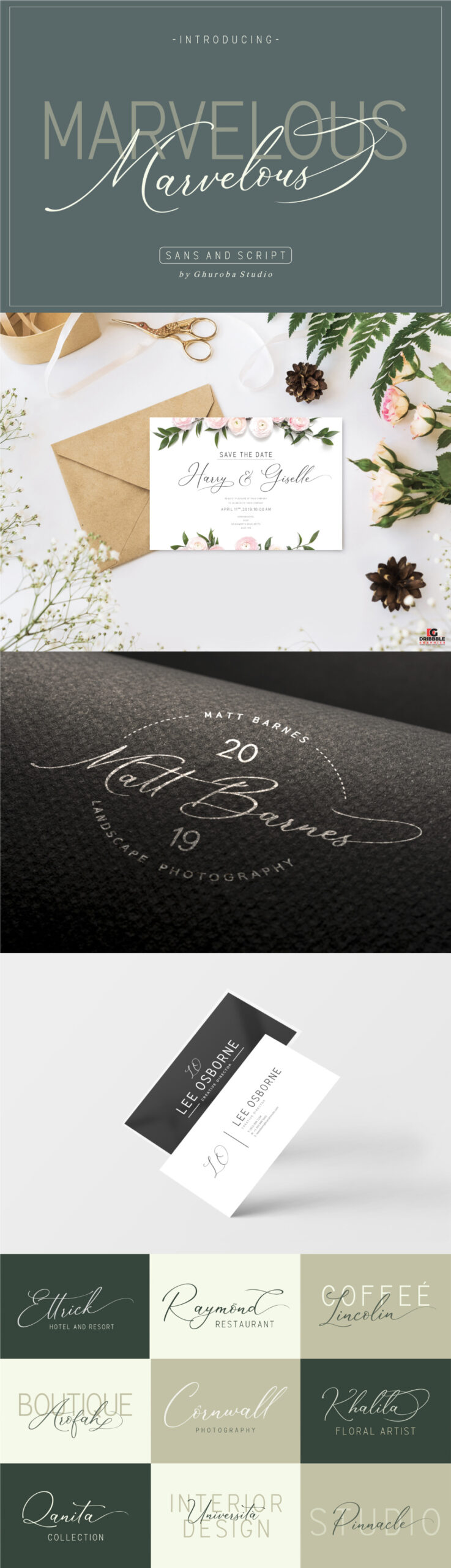
The Marvelous Font Duo, from Ghuroba Studio, is a stunning pair of a beautiful script and a sans serif fonts, which are designed to complement each other with elegant and contemporary style. Perfect for branding, invitations, business cards, weddings, logos, product packaging and more. Free for personal use! For commercial use please go here.